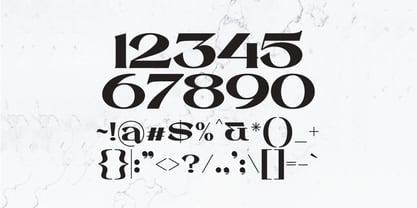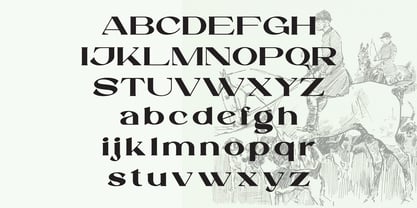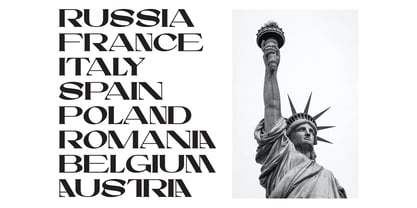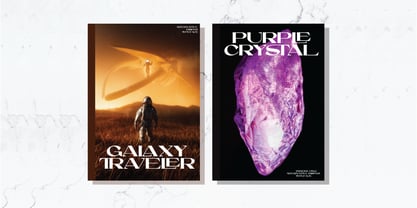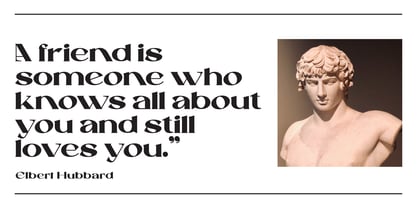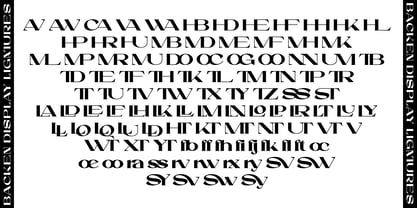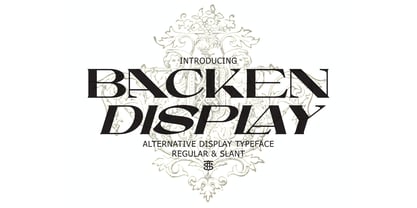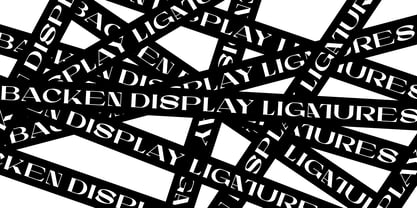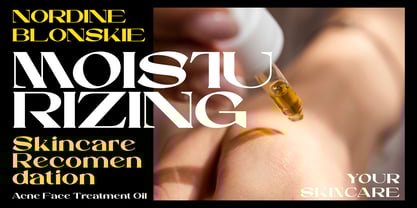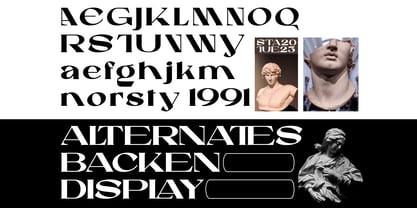
Backen Display
by Tebaltipis Studio
The Backen Display Font Family was designed by Dzulka Elfira and published by Tebaltipis Studio. Backen Display contains 2 styles and family package options. More about this family
Backen a new fresh & modern serif with a strong style, a dancing baseline! So beautiful on invitation like greeting cards, branding materials, business cards, quotes, posters, and more!
Backen Display Typeface is the part of a strong and modern Bold display. This typeface both impressive at display sizes and easily readable in text size, while the sharp shapes of the triangular serif and the distinctive letter shapes show their strength in logo design and impressive editorial use.